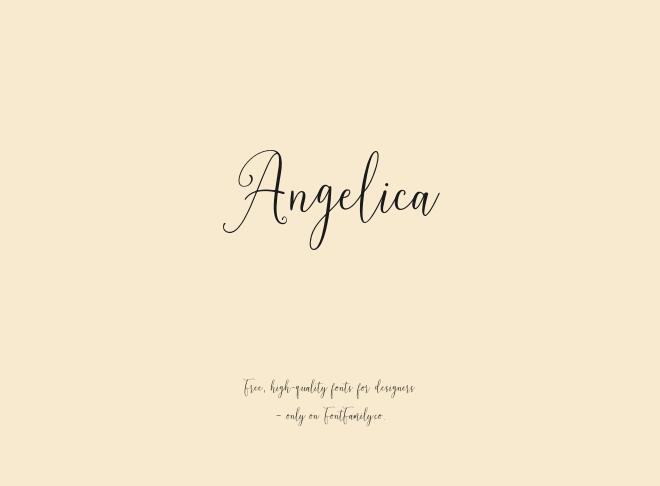
Angelica Font
Angelica Font, designed by Creative Type Foundry, is a unique handwritten script font with an elegant touch. Released in 2018, it has since become a favorite among designers for its fluidity and versatility. The font embodies a classic handwritten style with a modern twist. Its delicate curves and clean lines make it perfect for wedding invitations, branding, fashion magazines, and other design elements that require a touch of elegance and sophistication. Compared to other script fonts, Angelica Font stands out for its readability and charm. Its individuality and grace make it a great choice for those aiming to add a personal, artistic touch to their designs. The font is free for personal use, adding to its appeal.